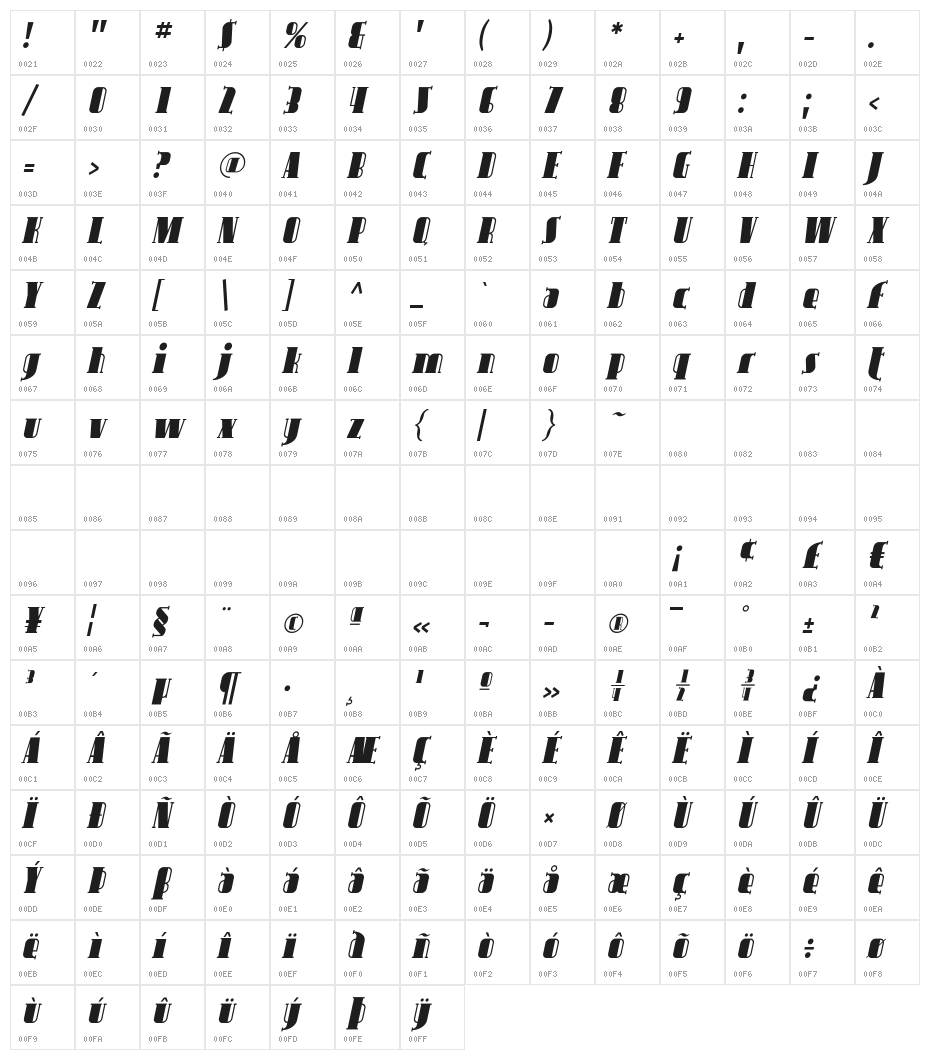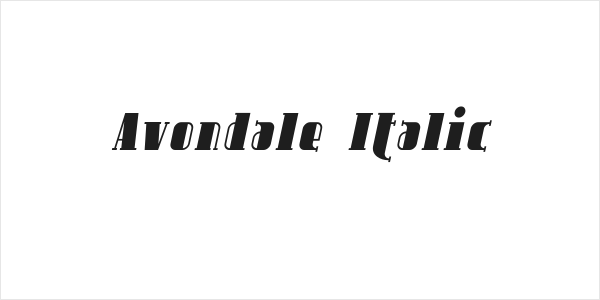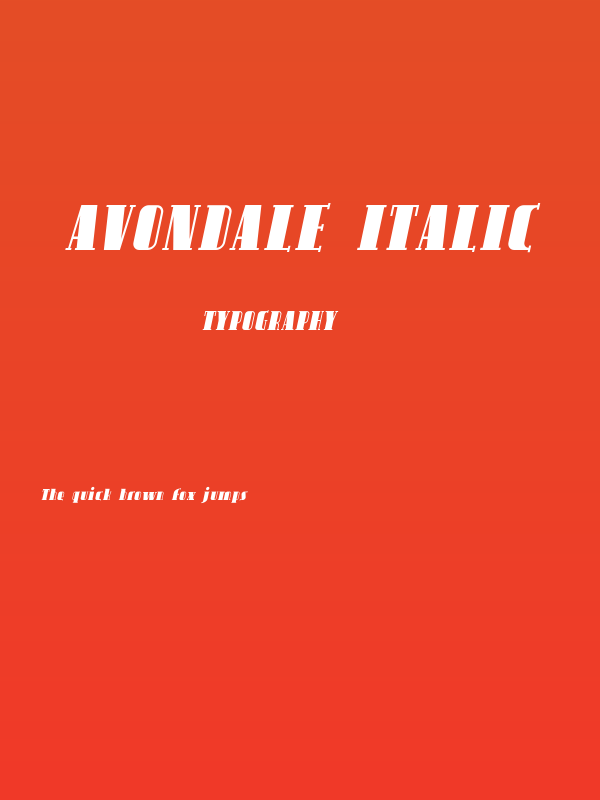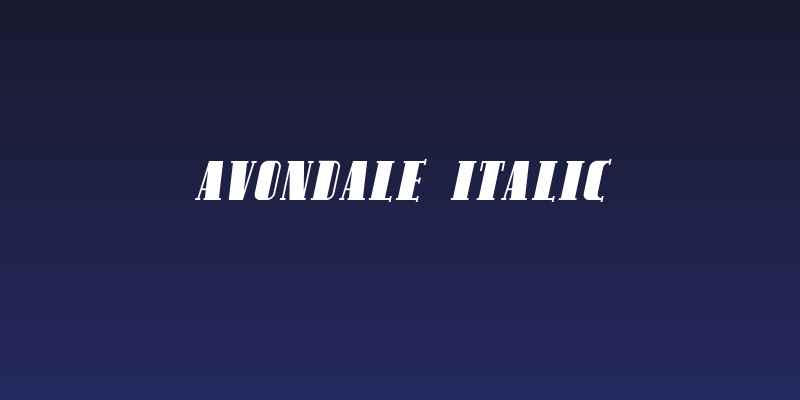
Avondale Italic Font
Avondale Italic Description
This font features a bold and dynamic italic style with pronounced serifs and a strong forward slant, giving it a sense of movement and urgency. The characters are well-defined with thick strokes and sharp edges, creating a striking visual impact. The uppercase letters are tall and commanding, while the lowercase letters maintain a consistent style with a slightly more compact form. The numerals are bold and easily distinguishable, complementing the overall aesthetic. Special characters are designed with the same attention to detail, ensuring uniformity across the typeface. This font's unique style makes it suitable for projects that require a bold and expressive look.
| Proposed Projects | Ideal for headlines, posters, branding, and any design requiring a bold, dynamic presence. |